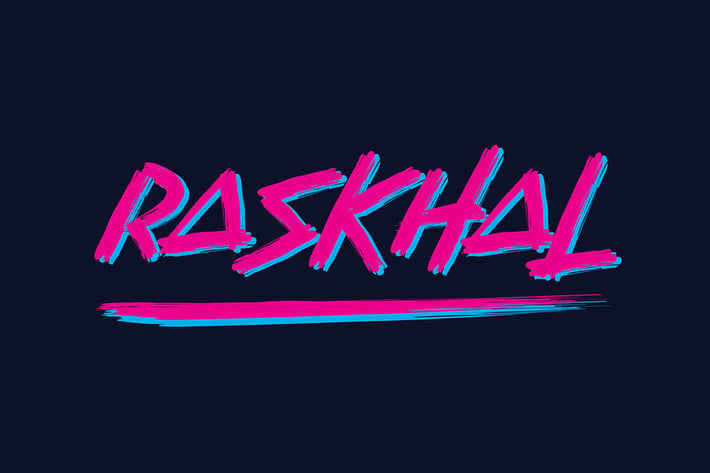
Raskhal - Brush Font
Raskhal inspired by 1980’s and neon lights.
Raskhal offers beautiful typographic harmony for a diversity of design projects,
including logos & branding, social media posts, advertisements & product designs.